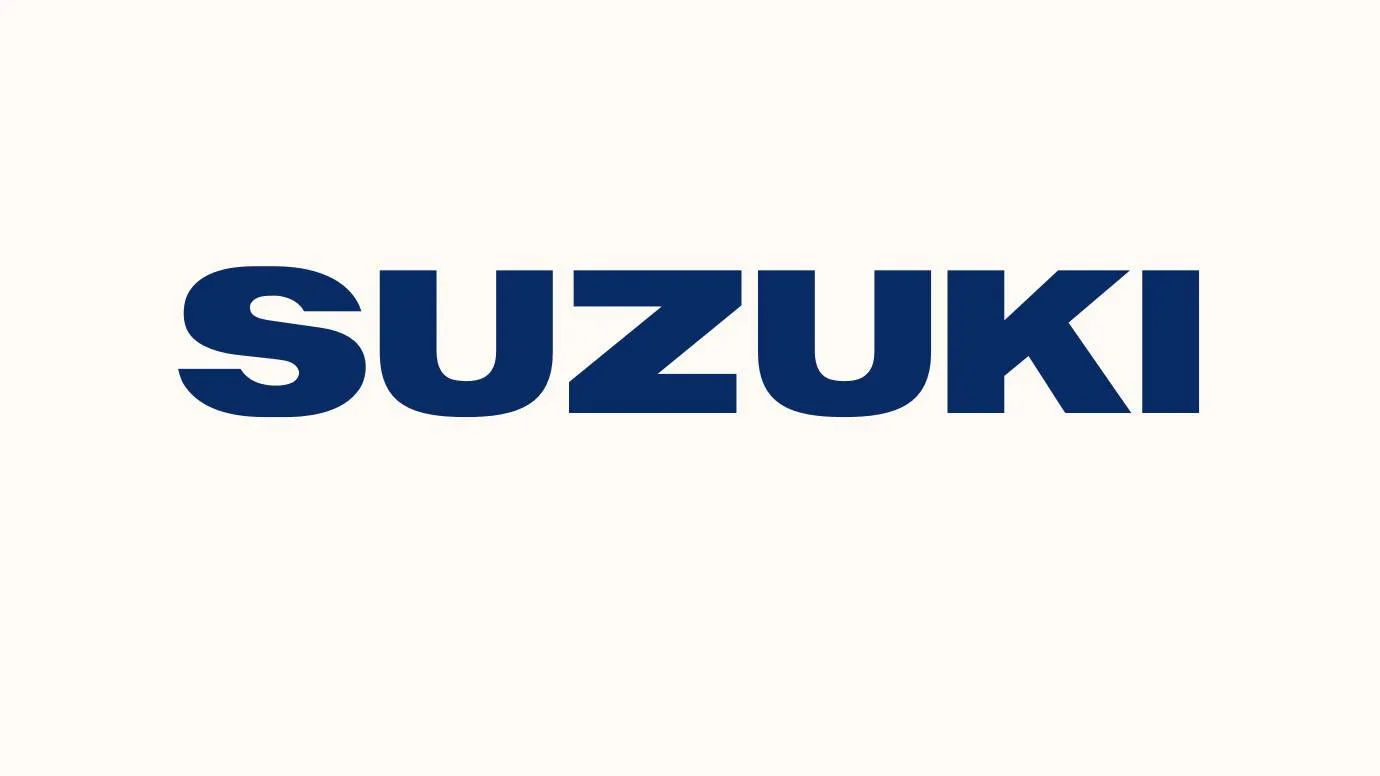
Suzuki Font Family is a staggering typeface falls in the category of sans serif fonts but because of the use in the logo of Suzuki corporation, this texture is counted in the category of logo fonts.
Currently in its logo “Neue Helvetica Pro 93 Extended Black” font is used which was manufactured by Max Miedinger and Edouard Hoffmann. Suzuki typeface was mainly designed by the Linotype font foundry.
| Name | Suzuki Font |
| Type | Logo |
| Designer | Linotype |